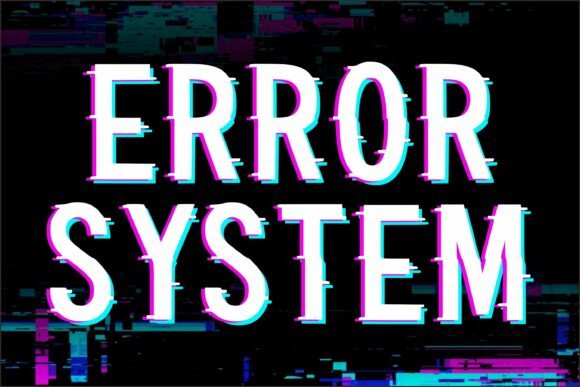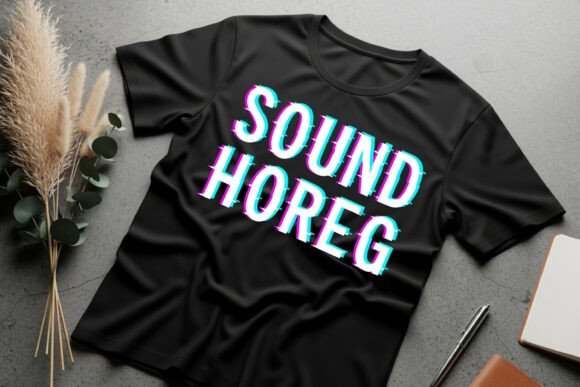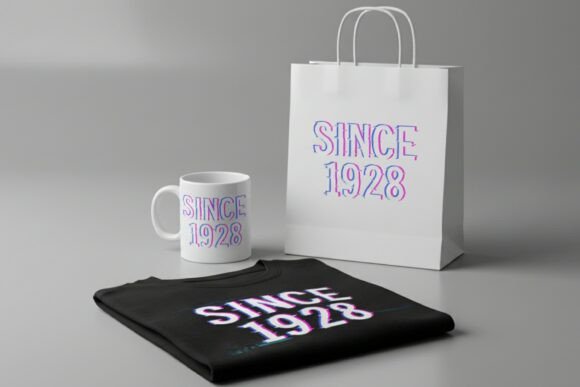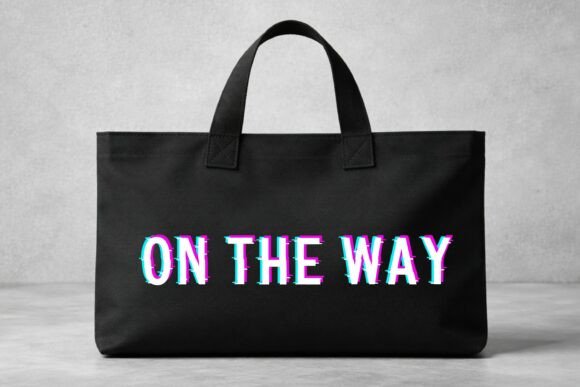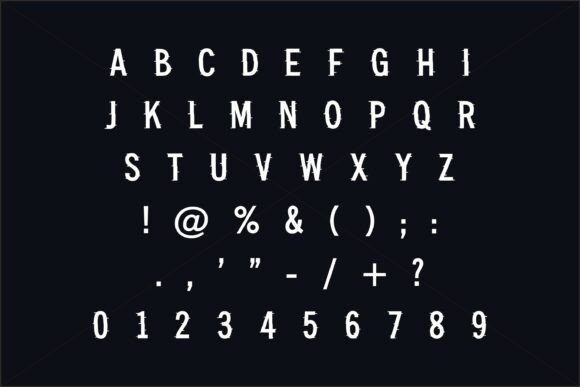
Introducing Glitch Noise Font: Elevate Your Designs with a Futuristic Cyberpunk Twist
In the realm of digital design, fonts play a pivotal role in setting the tone and aesthetic of a project. For those seeking to infuse their creations with a modern cyberpunk vibe, Glitch Noise Font emerges as a game-changer. This futuristic display font is meticulously crafted with a powerful digital glitch effect, instantly transporting your designs into a futuristic realm. Let’s dive deeper into what makes Glitch Noise an indispensable asset for designers and crafters alike.
The Essence of Glitch Noise Font
Glitch Noise Font is not just another addition to the myriad of fonts available; it’s a bold statement piece. Its bold characters, coupled with distorted visual details, are specifically designed to capture attention and evoke a sense of cyberpunk futurism. The inspiration drawn from electronic interference, retro digital screens, and sci-fi aesthetics is evident in its unique appeal. This font doesn’t just convey a message; it creates an experience, making it perfect for a wide array of applications.
Perfect Applications for Glitch Noise
The versatility of Glitch Noise Font is one of its standout features. It’s tailor-made for projects that demand a modern, edgy look. Some of the ideal uses include:
- Gaming Posters: Give your gaming posters a competitive edge with a font that’s bold, modern, and attention-grabbing.
- Esports Branding: Elevate your esports brand with a font that exudes professionalism and a cutting-edge spirit.
- Cyberpunk Designs: Seamlessly integrate into cyberpunk-themed projects with a font that’s inspired by the aesthetic.
- YouTube Thumbnails: Stand out in a crowded YouTube landscape with thumbnails that pop, thanks to Glitch Noise.
- Music Covers: Add a futuristic twist to your music covers, especially for genres like electronic and techno.
- Stream Overlays: Enhance your stream overlays with a modern font that resonates with the tech-savvy audience.
- Tech Branding: Perfect for tech companies looking to brand themselves as innovative and forward-thinking.
- Digital Artwork: Incorporate Glitch Noise into your digital artwork for a cyberpunk effect that’s sure to impress.
- Modern Merchandise: From t-shirts to gadgets, add a trendy vibe to your merchandise.
- Uppercase Letters: A comprehensive set of uppercase letters to ensure your designs are bold and legible.
- Numbers & Punctuation: Complete with numbers and punctuation marks, ensuring versatility in your typography.
- Multilingual Support: Cater to a global audience with a font that supports multiple languages.
Why Choose Glitch Noise Font?
In a sea of fonts, Glitch Noise stands out for its unique blend of style, readability, and thematic relevance. It’s not just a font; it’s a design statement. Here are a few reasons why designers and crafters are gravitating towards Glitch Noise:
- Strong Visual Impact: Achieve a striking visual effect that captures attention and communicates a futuristic aesthetic.
- Readability and Style: Despite its bold and distorted details, Glitch Noise remains surprisingly readable, making it a practical choice for various applications.
- Versatility: From vaporwave artwork to cyber-themed merchandise, Glitch Noise adapts seamlessly to different creative projects.
- High-Tech and Energetic Personality: Infuse your designs with a sense of innovation and dynamism, perfect for brands and creators looking to stand out.
| Font Name | Glitch Noise Font |
| Author | Dreamspace.studio |
Glitch Noise Font is more than just a typographical addition to your design toolkit; it’s a gateway to creating visually stunning, cyberpunk-inspired projects. Whether you’re a professional designer, a gamer, a tech enthusiast, or a creative at heart, Glitch Noise offers the perfect blend of aesthetics and functionality. Elevate your designs, merchandise, or digital content with a font that embodies the spirit of the future. Dive into the world of cyberpunk design with Glitch Noise Font and let your creativity thrive in a digital age.